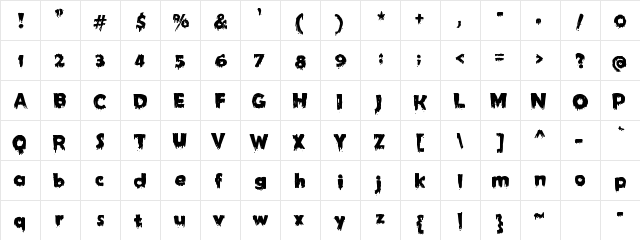
Shocktober Regular
Design Context for Shocktober Typeface
Shocktober is a composed and adaptable typeface that performs quietly and consistently across a wide range of design contexts.